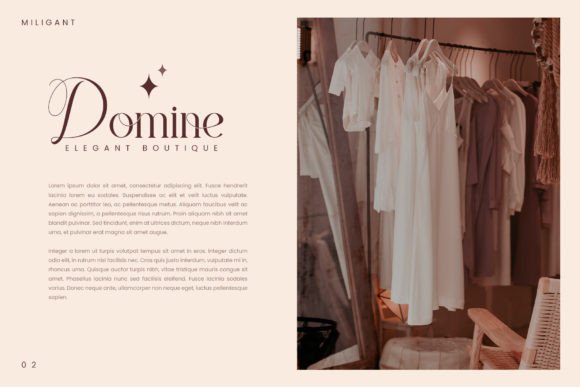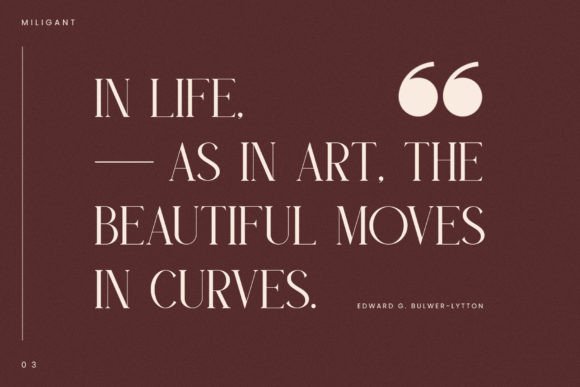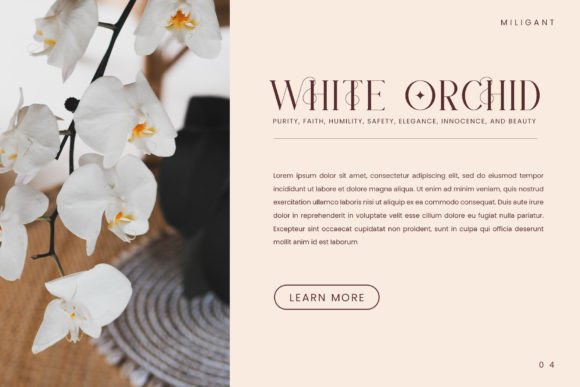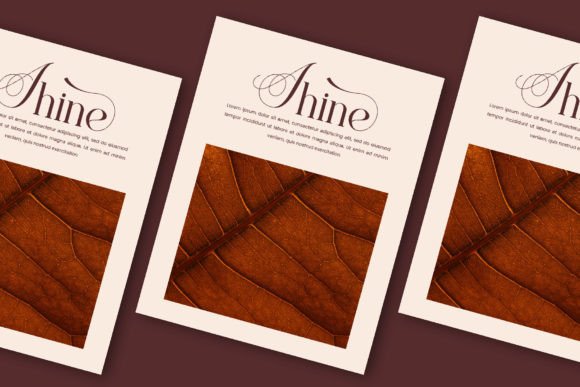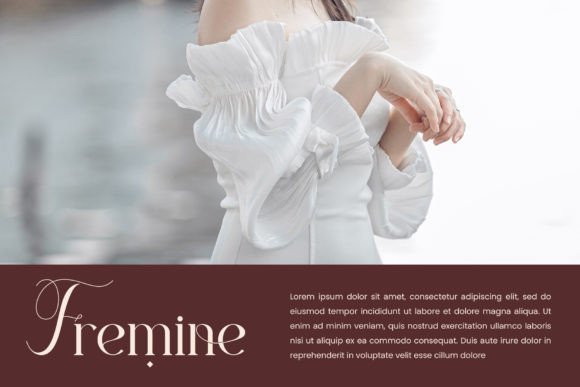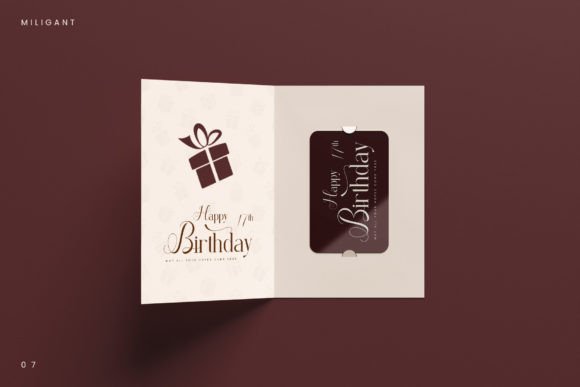
Introduction to Miligant Serif Font Font
Fonts play a crucial role in design, and the Miligant Serif Font font is a typeface that brings both character and versatility to any project. Whether you’re working on a branding project, a website, or a print design, the Miligant Serif Font font offers a unique style that can elevate your work.
Miligant Font is a stunning combination of a calligraphy script font and a modern serif font.
He has a beautiful character Very suitable to be combined with invitation card designs, company logos, film titles, film names, business cards, book titles, brand names, and various other designs.
Key Features of Miligant Serif Font Font
Why Choose Miligant Serif Font Font?
The Miligant Serif Font font is more than just a typeface – it’s a design tool that helps you communicate your message with style and clarity. Its unique character set and versatile design make it suitable for a wide range of applications, from elegant invitations to bold headlines.
With its carefully crafted letterforms and balanced proportions, the Miligant Serif Font font ensures readability and visual appeal across all mediums.
What makes Miligant Serif Font font special?
The Miligant Serif Font font stands out with its unique design, exceptional readability, and versatility across various design applications.